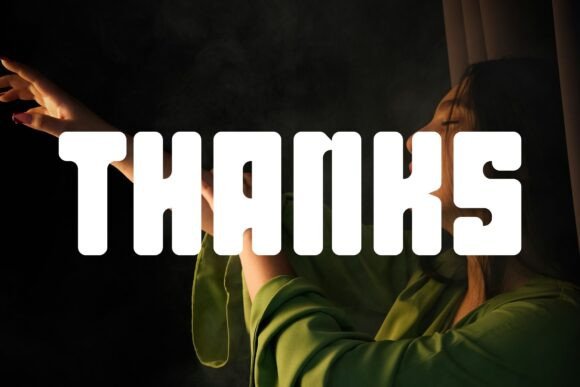
Introduction to Layra Font
As a designer, have you ever found yourself staring at a blank page, desperately searching for the perfect font to bring your creative project to life? I know I have. But then, one day, I stumbled upon the Layra Font, and everything changed. This charming sans serif font has a unique touch of style that sets it apart from the rest, and its versatility makes it a valuable resource for any design project.
What I love about Layra Font is its ability to add an interesting twist to any design, while still maintaining a modern and relevant look. Whether you’re working on a logo, a poster, or a digital design, this font is sure to impress. And with its transparent background and high-quality design, you can rest assured that your work will look professional and polished.
Key Features of Layra Font
- High-quality, professional design resource ideal for creative projects
- Supports a wide range of languages, making it a versatile design resource for international projects
- Unique, elegant design style that can add a touch of sophistication to any creative project
Honest Review: Layra Font
I recently came across the Layra Font, and I must say it’s been a game-changer for my design projects. This font is a fantastic addition to any designer’s toolkit, offering a unique and elegant style that’s perfect for creative projects.
- ✨ High-quality design that’s perfect for professional use
- ✨ Transparent background makes it easy to work with
However, I do have a few reservations:
- ⚠️ Limited character set may be a concern for designers working on complex projects
- ⚠️ Some users may find the font’s style too ornate for certain designs
Overall, I’m thoroughly impressed with the Layra Font. Its high-quality design and free download make it a valuable resource for designers working on creative projects. While it may have some limitations, I believe it’s a great addition to any design toolkit.
As a designer, I appreciate the transparency and honesty that comes with this font. It’s clear that the creators have put a lot of thought into designing a font that’s both functional and visually appealing. I’m excited to see how it will perform in my future design projects.
Tips for Getting the Most Out of Layra Font
For a high-quality output, use Layra Font on a transparent background to ensure a seamless integration with your design elements. You can also experiment with different font sizes and styles to create a unique visual effect.
Layra Font is ideal for creative projects that require a modern and elegant look. It can be used for typography, branding, and design elements in various industries such as fashion, beauty, and lifestyle.